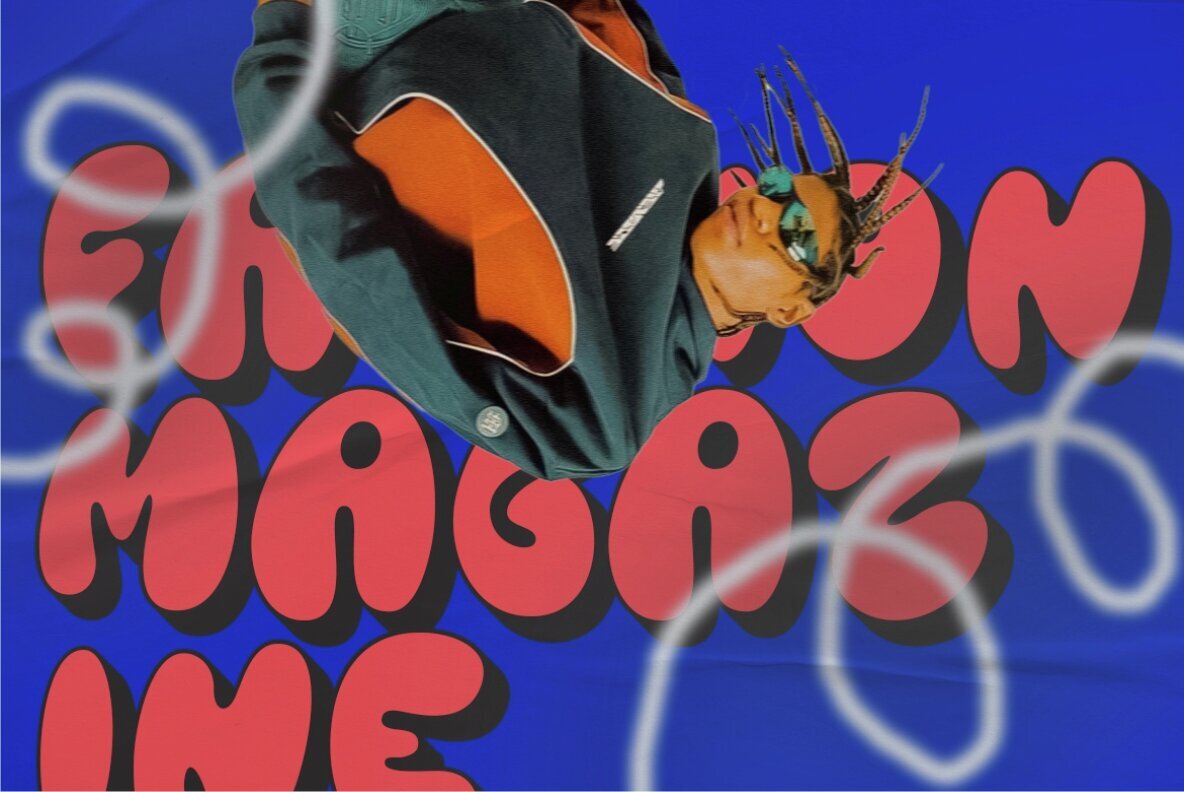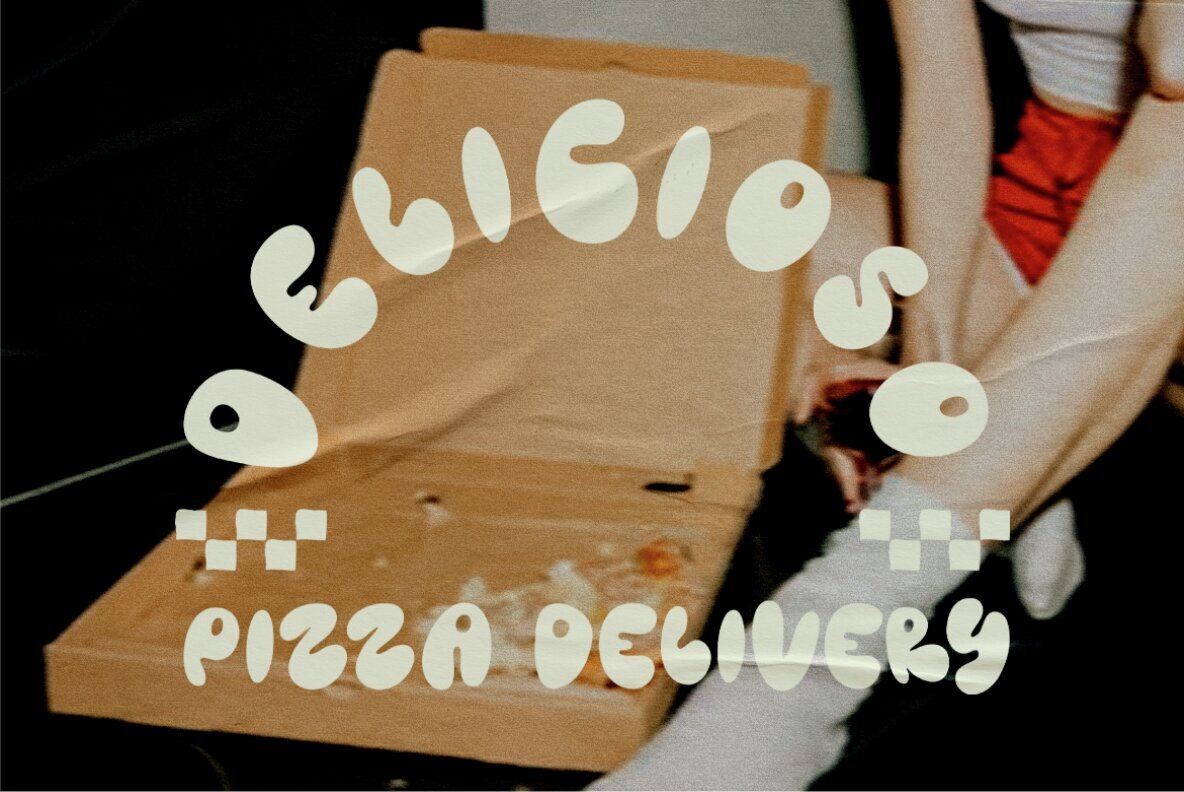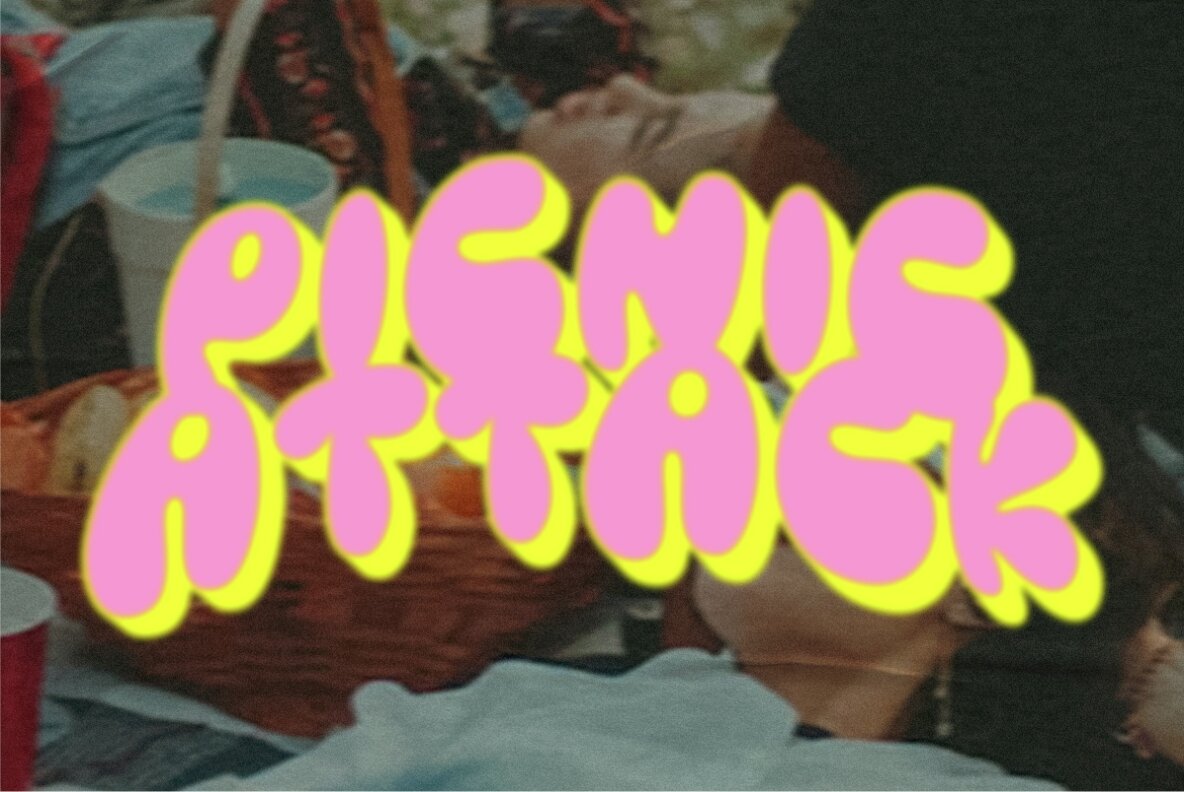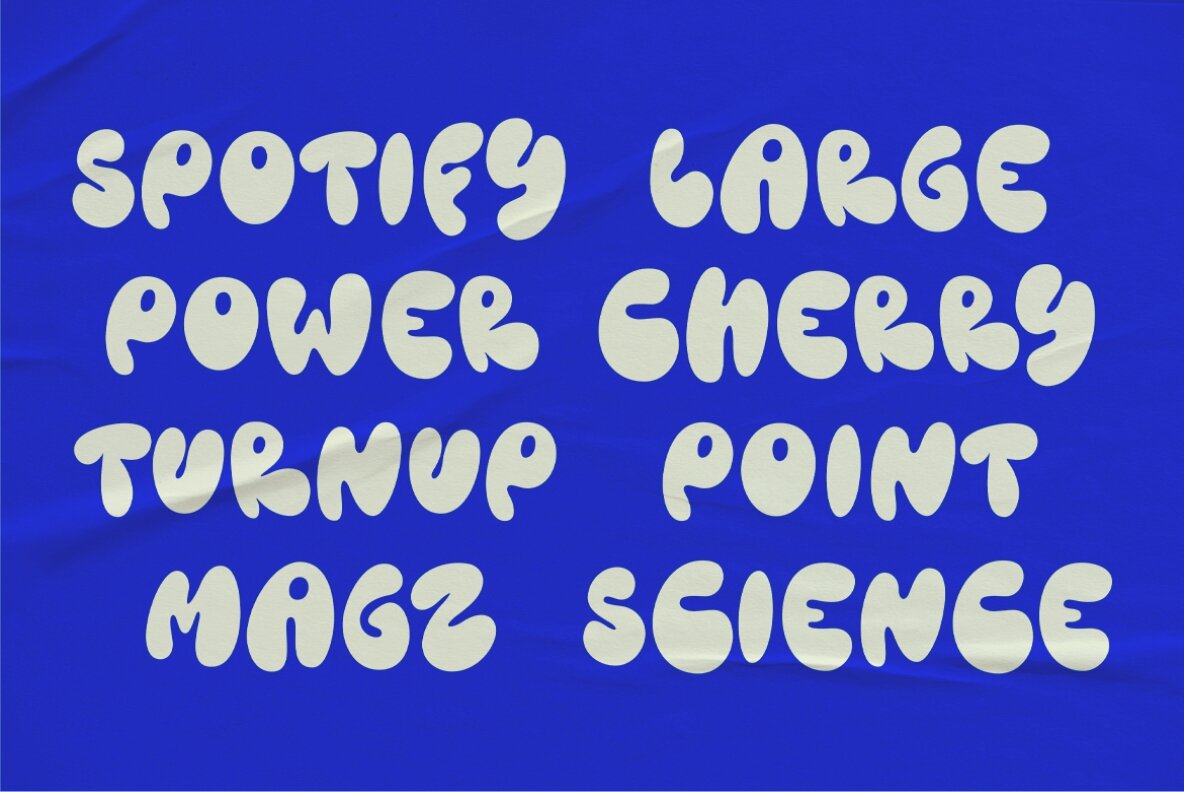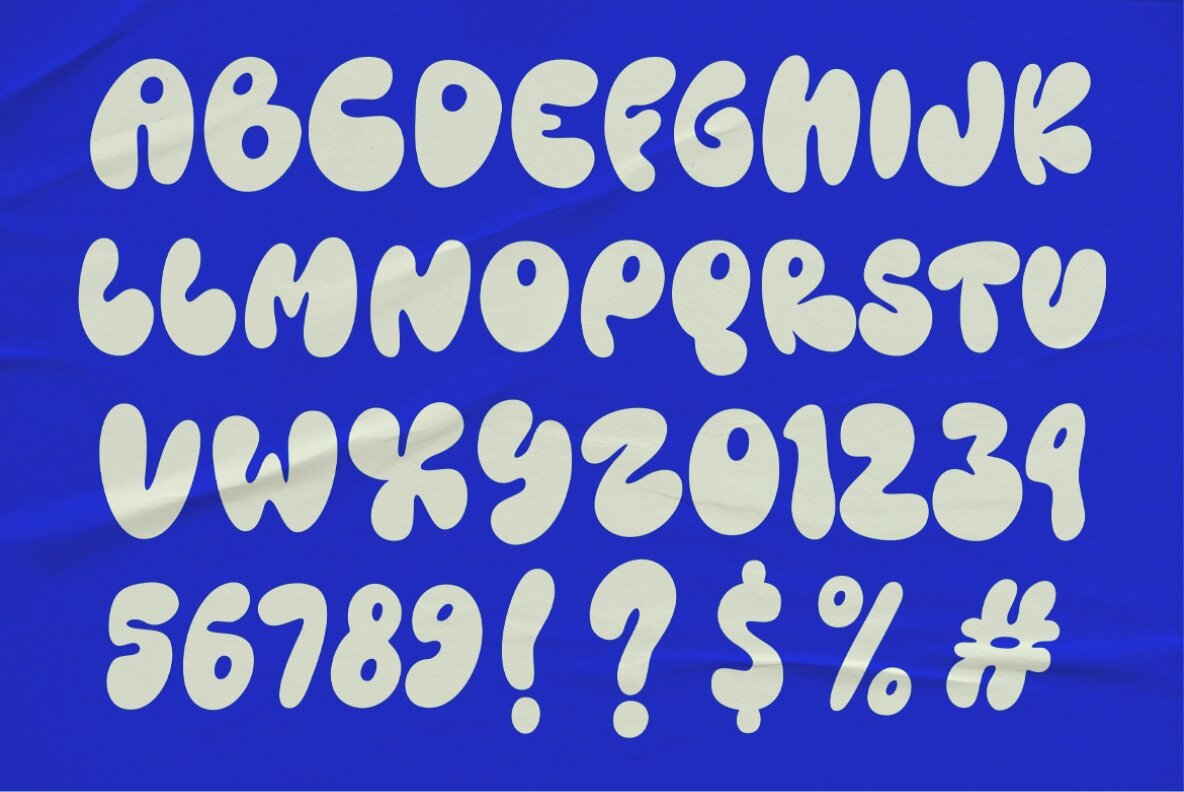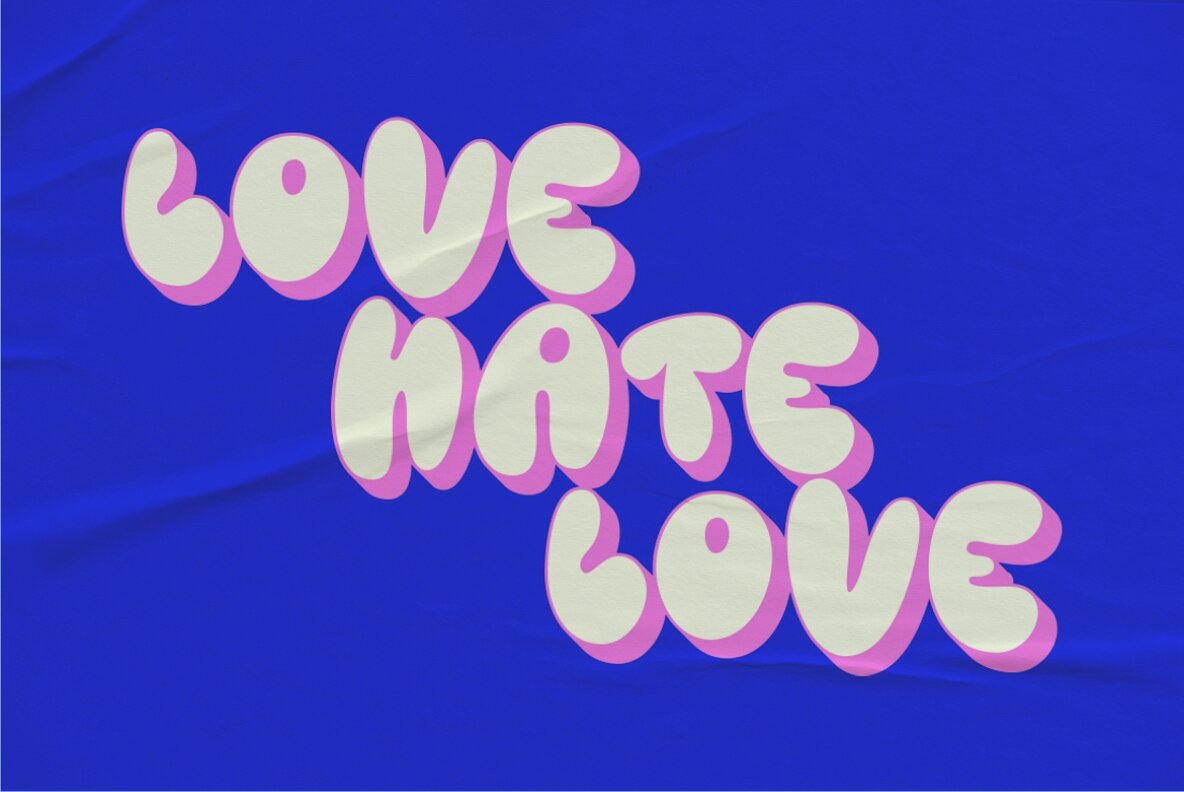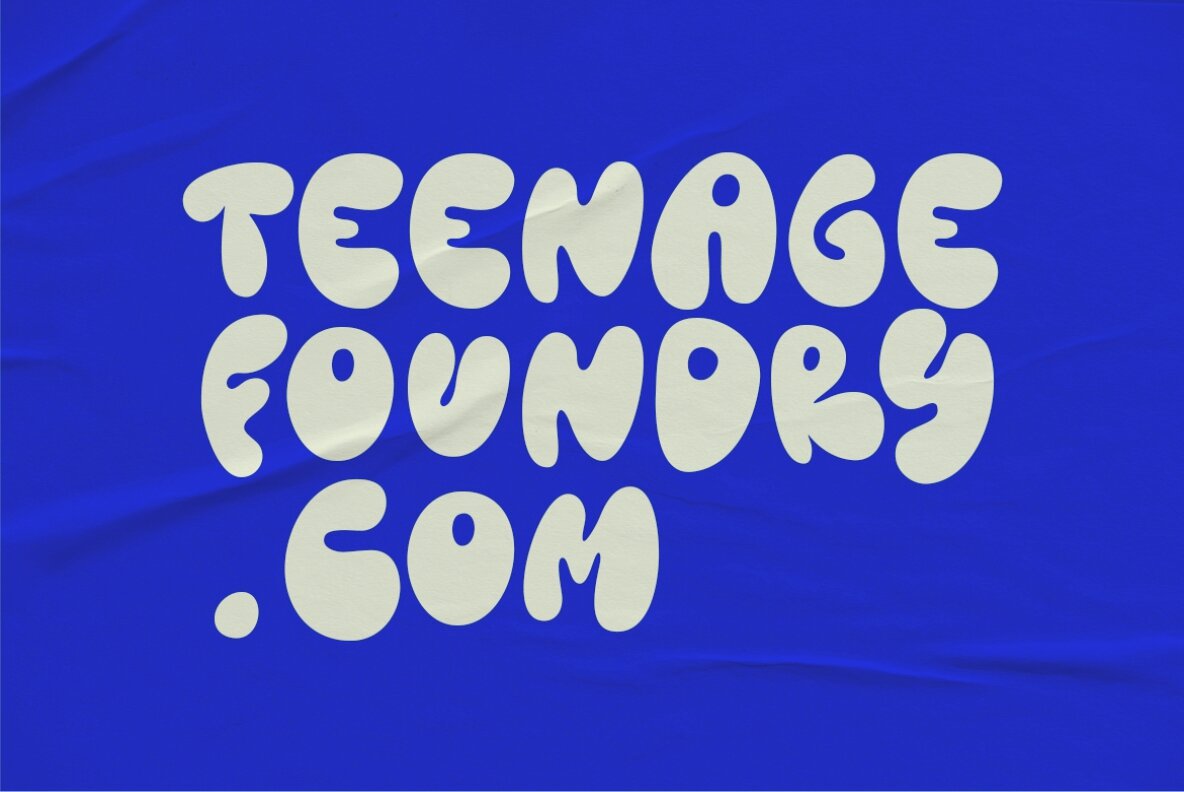
TF Bombass Font
TF Bombass is a groovy typeface that’s sure to transport you back to the funky, psychedelic era of the 60s and 70s! With its bold, playful style and unique character, this font is perfect for adding a retro feel to your design projects. This font is incredibly versatile and can be used for a range of design projects, including posters, album covers, branding, and more. Its groovy style gives it a unique character that’s sure to make an impact.
Teenage Foundry brings playful irreverence and bold character to contemporary type design. Known for high-impact display fonts, their work often leans into retro, pop, and offbeat aesthetics—ideal for projects that demand standout personality. From groovy curves to heavy geometric forms, their catalog spans a...